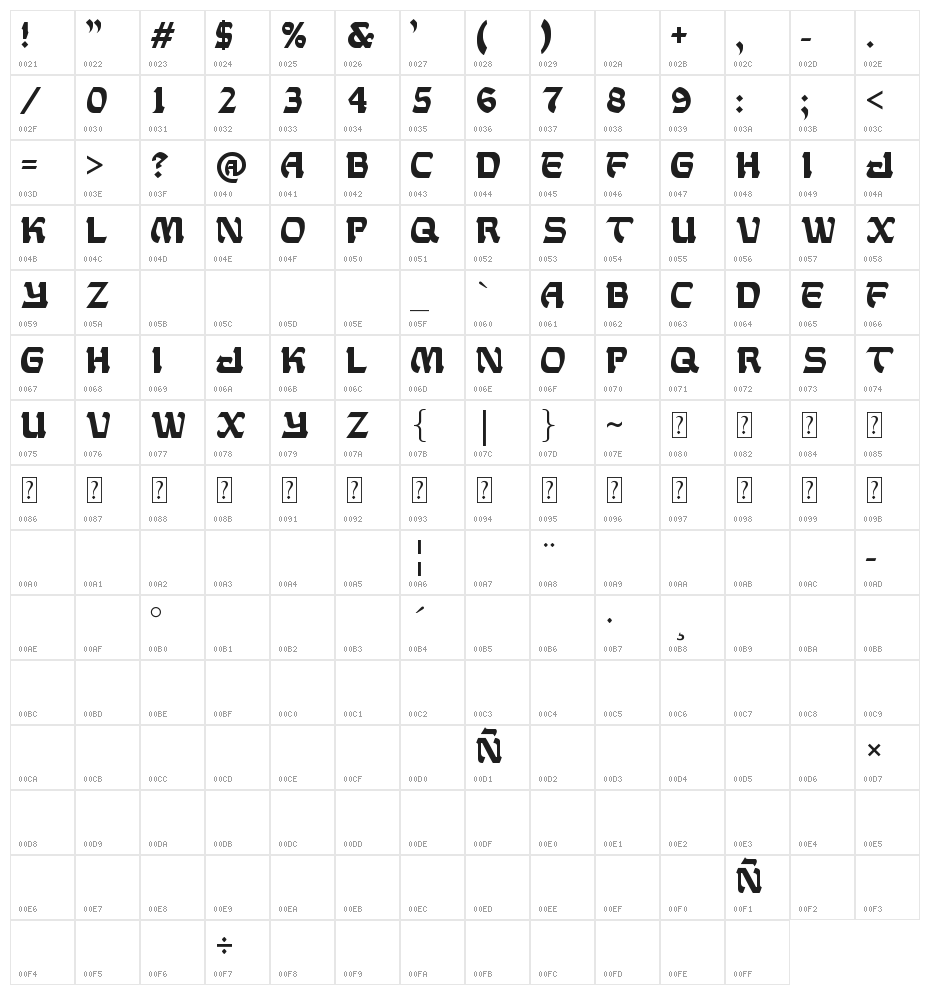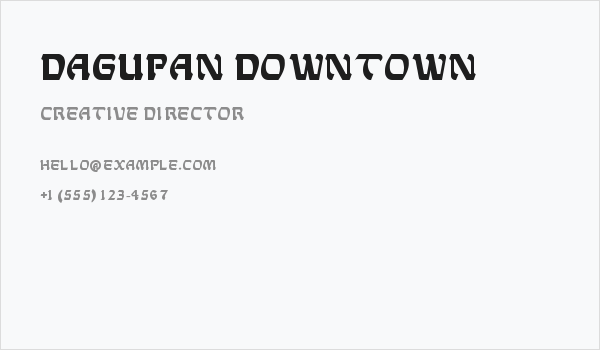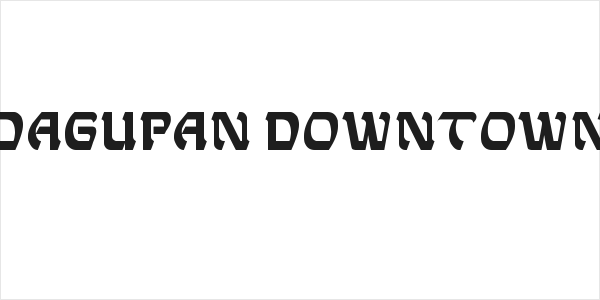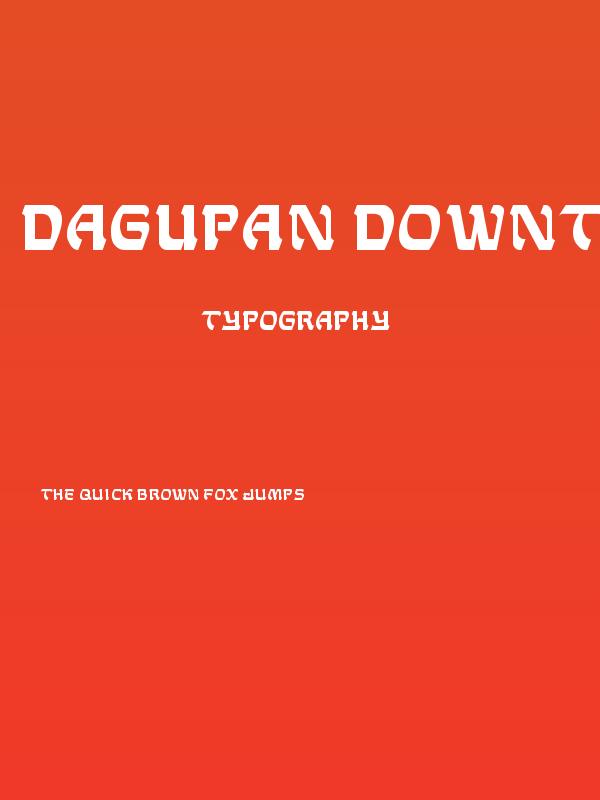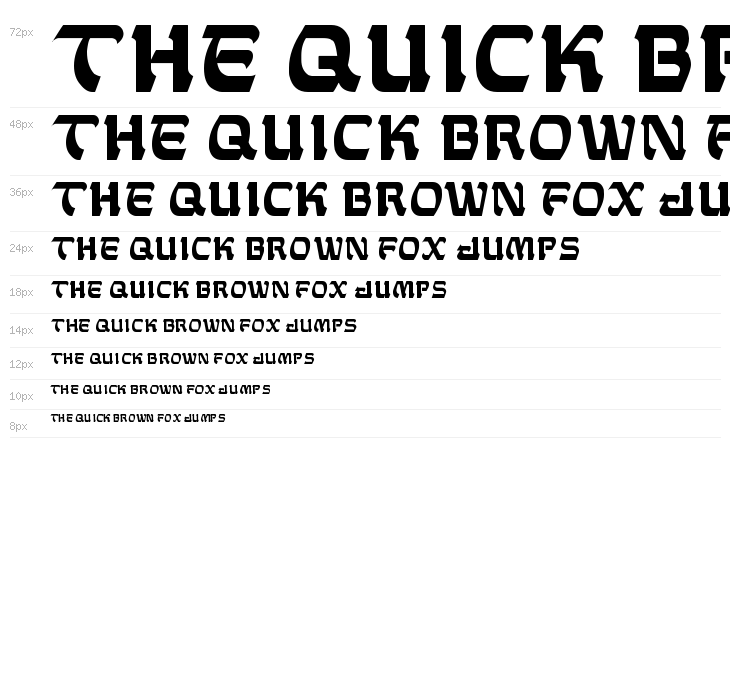
Dagupan Downtown Font
Dagupan Downtown Description
This font features a bold and striking design with angular, geometric shapes that give it a modern and edgy appearance. The characters are crafted with sharp edges and a consistent stroke width, creating a uniform and cohesive look. The uppercase and lowercase letters maintain a strong presence, while the numerals and special characters complement the overall style with their robust and distinctive forms. This font's unique design makes it stand out, offering a contemporary twist on traditional typefaces.
| Proposed Projects | Ideal for branding, posters, headlines, and any project requiring a bold, modern aesthetic. |